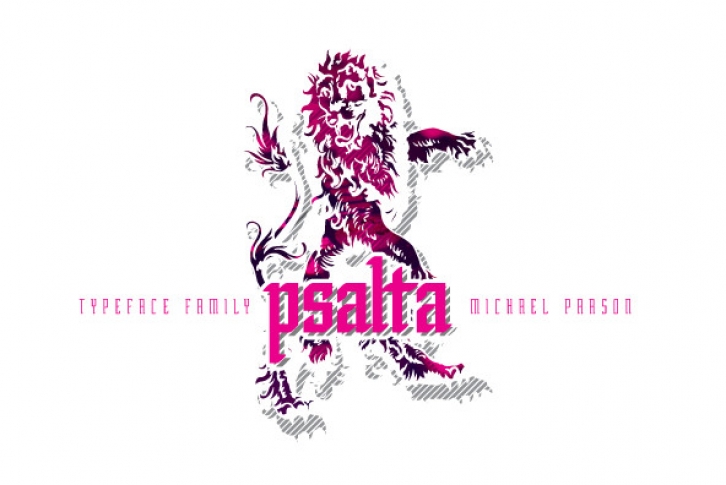
Psalta is a contempory Blackletter design that is built on a narrow, condensed structure and features a large weight range, from a hairline light weight to a dark, heavy, bold version. The typeface equally features a full Cyrillic character set and an Ornamental weight that is included in the Opentype family.